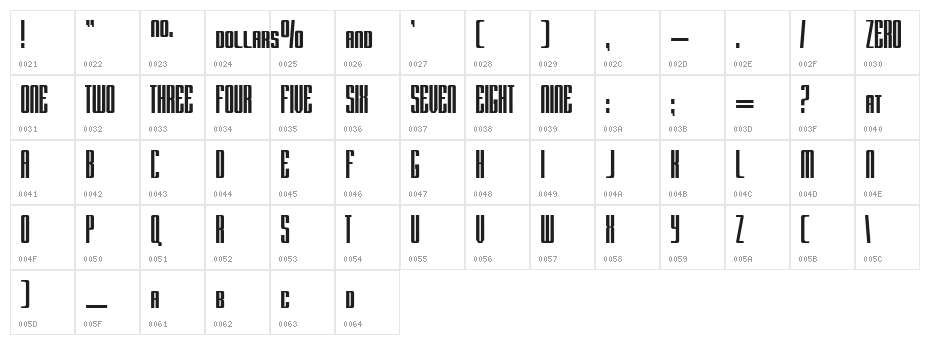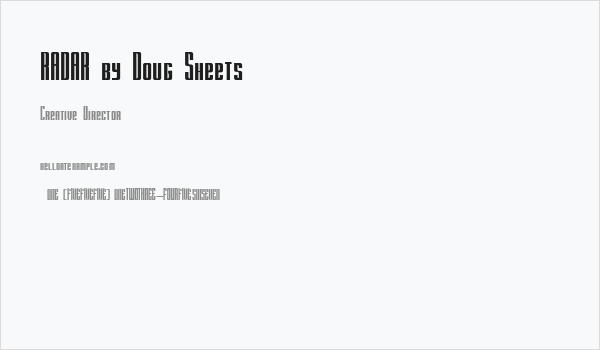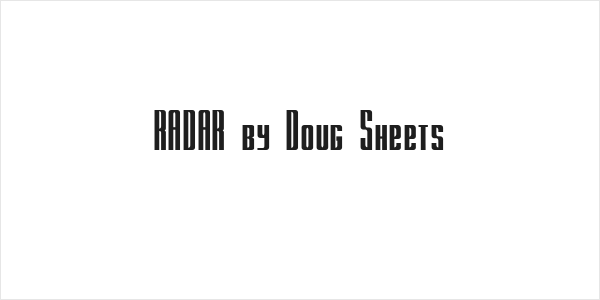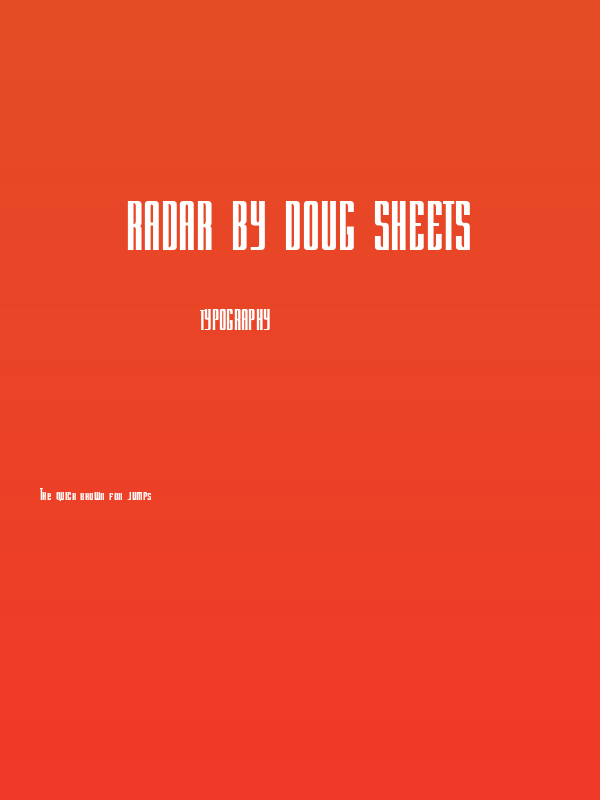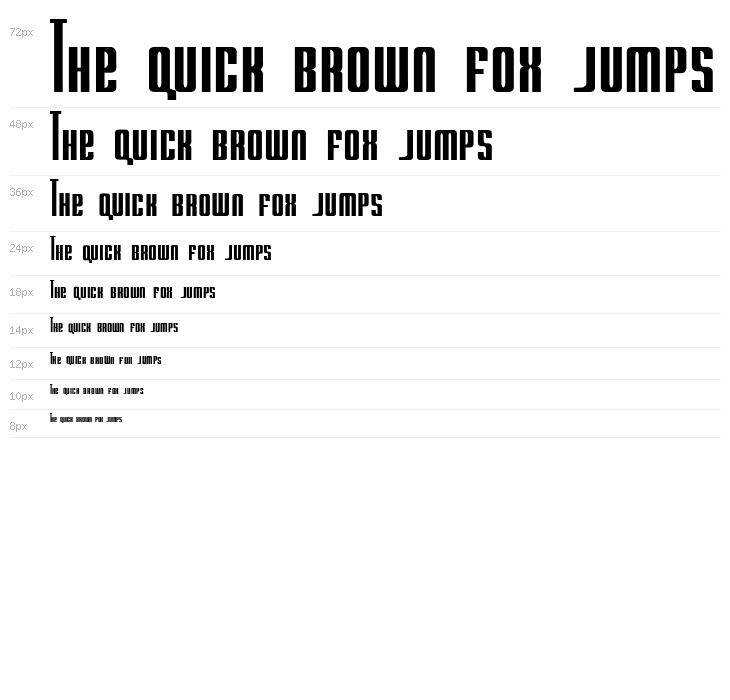
RADAR by Doug Sheets Font
RADAR by Doug Sheets Description
This font features a bold and striking design with a strong geometric influence. The characters are tall and narrow, giving a condensed appearance that is both modern and dynamic. The uppercase letters are particularly prominent, with sharp angles and clean lines that create a sense of movement and energy. The lowercase letters maintain the same geometric style, ensuring consistency throughout the typeface. Numbers and special characters are designed to match the boldness and clarity of the alphabet, making this font highly versatile for various applications. The overall style is reminiscent of industrial and futuristic themes, suitable for projects that require a strong visual impact.